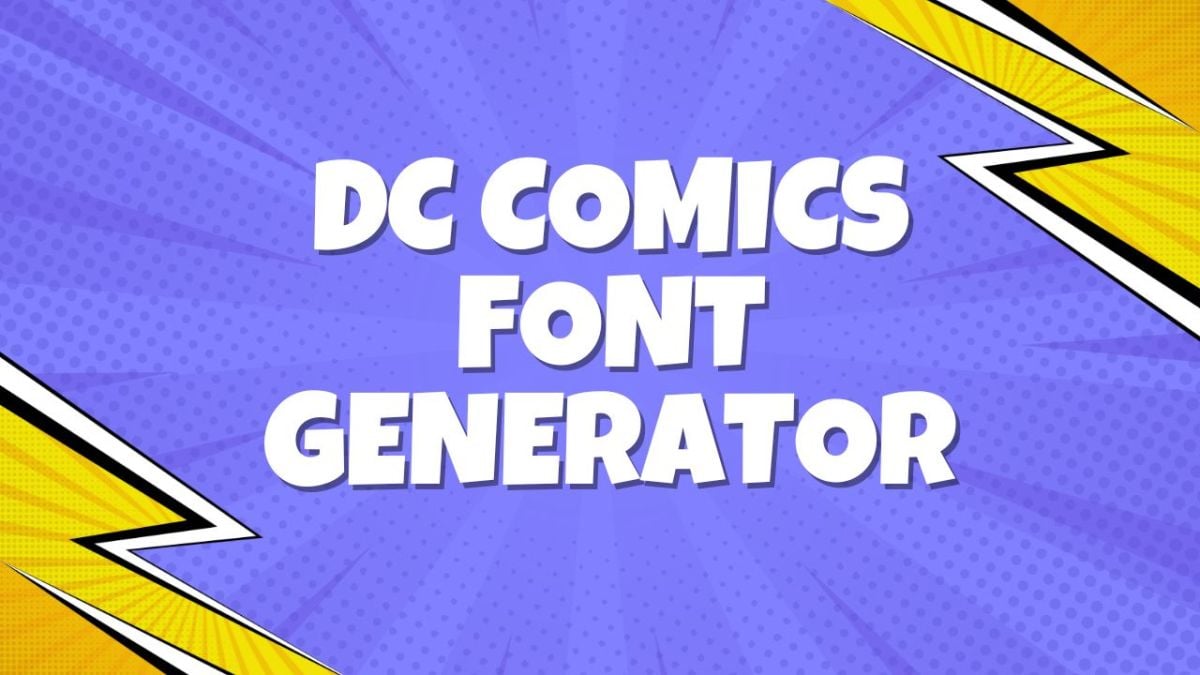
🦸 DC Comics Font Generator 🦸
🦸 Create epic hero text effects for cape-worthy designs! 🦸
Get the authentic DC Comics font – the perfect hero typography for cape-worthy designs. Perfect for DC Comics and superhero-themed projects.
DC Comics font captures the epic hero essence of Justice League and superhero power! This powerful typography brings authentic DC Comics character to your text designs. Our DC Comics Font Generator lets you create epic text using the authentic DC Comics font. Perfect for superhero-themed designs, comic book projects, and cape-worthy content.
Experience the power of the Justice League with our premium hero font that adds superhero strength to your typography!
🦸 DC Comics Font
Access the authentic DC Comics font for that perfect superhero typography experience.
🏰 DC Universe Projects
Perfect for superhero posters, fan art, comic designs, merchandise, and cape-worthy content.
🦸 Perfect For DC Comics Font
🦸 Superhero Content
- DC Comics comic posters and banners
- Justice League merchandise designs
- Superhero character graphics
- DC Universe-themed websites
⚡ Fan Projects
- DC Comics fan art and designs
- Superhero content creation
- Justice League merchandise design
- Hero-themed branding
🎮 Gaming Content
- DC video game interfaces
- Superhero game UI elements
- Character name designs
- Justice League game posters